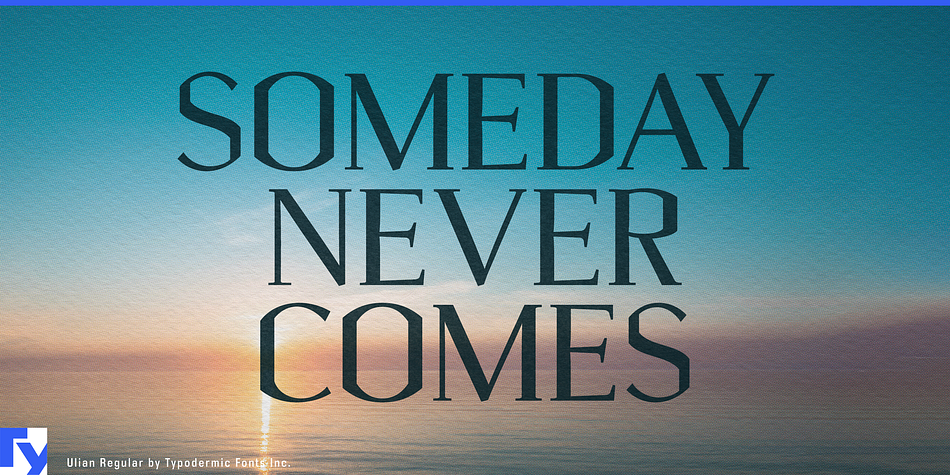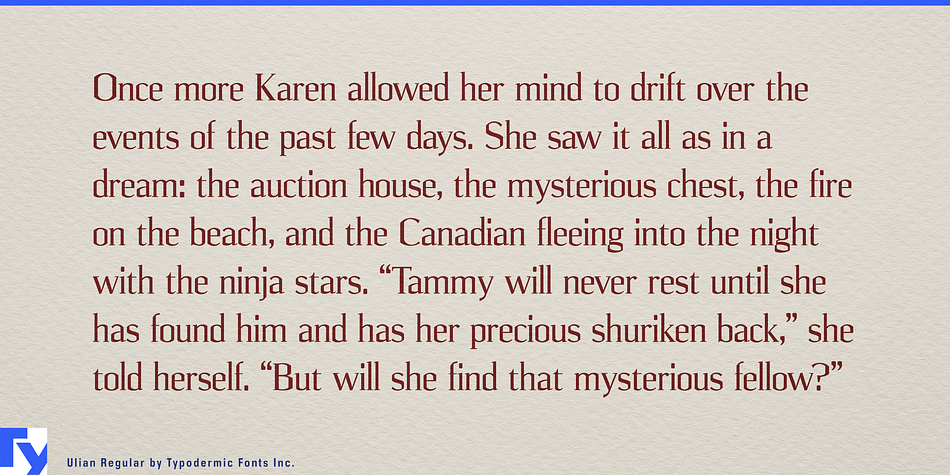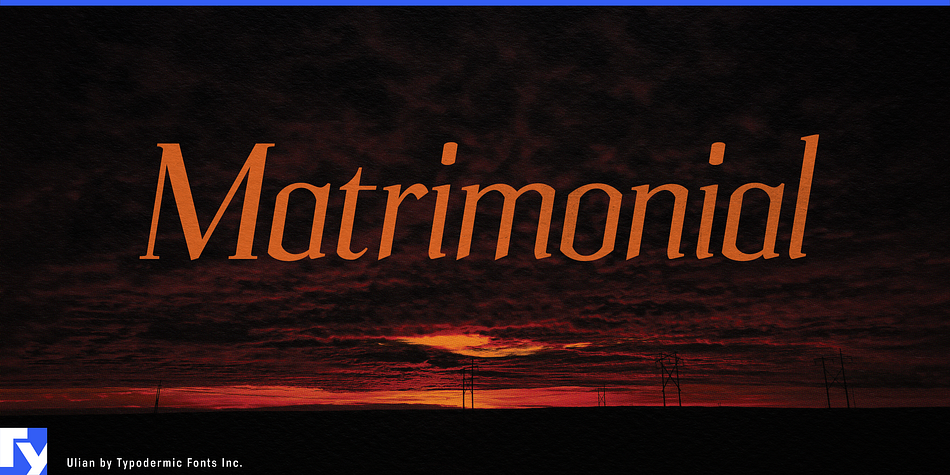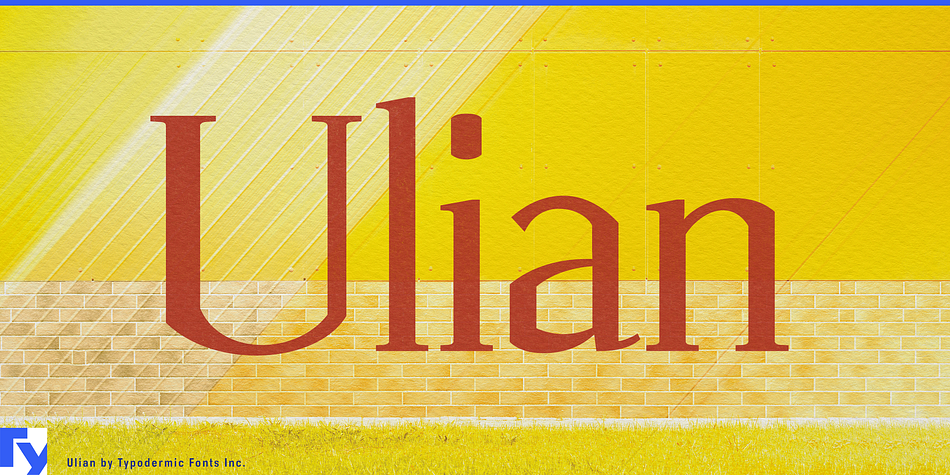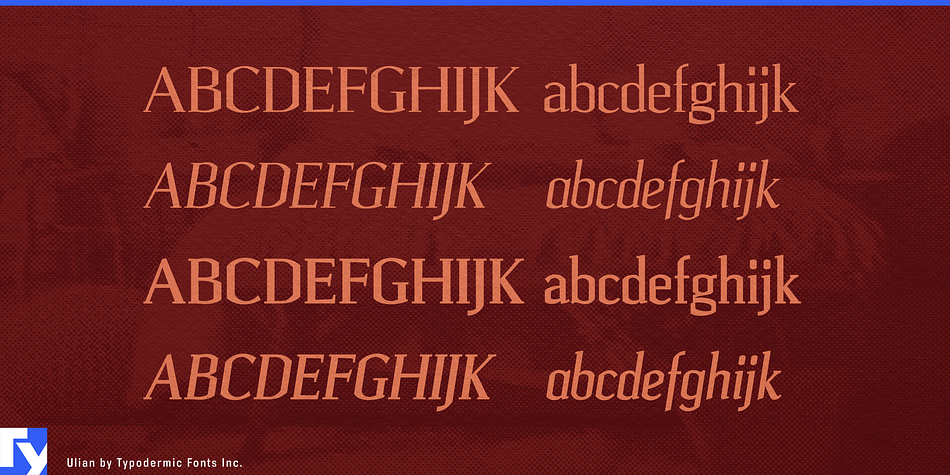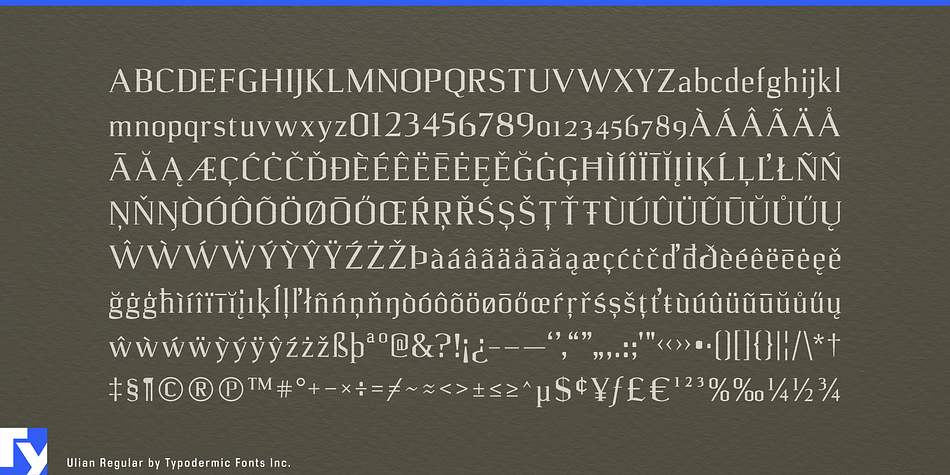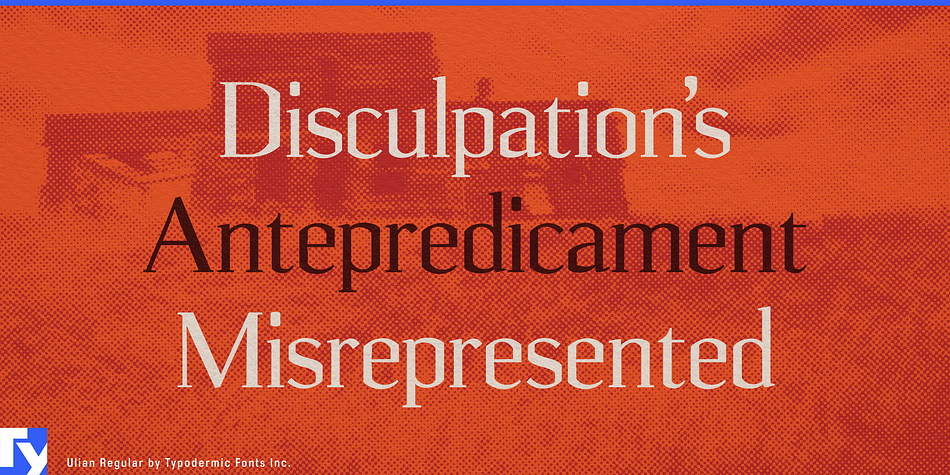
Ulian is a display serif font family. This typeface has four styles and was published by Typodermic Fonts Inc.
Ulian is a crisp, uniquely individual display face from Typodermic—a fresh departure in an entirely different direction. Ulian combines the distinctive straight sides of blackletter with features of more current types; the curves, serifs and thick/thin treatment of Romans, and the wide flattened curves of squared geometric types (popular in the late 1960s through the 1970s and now in revival).